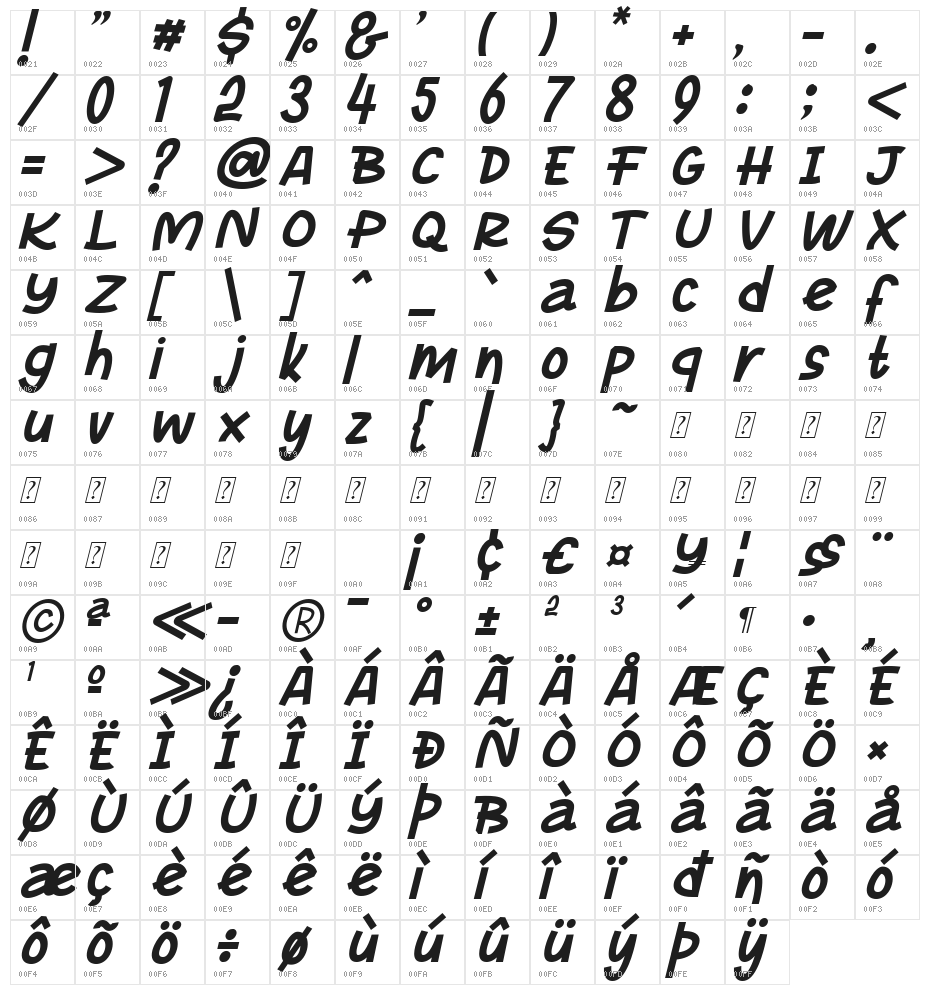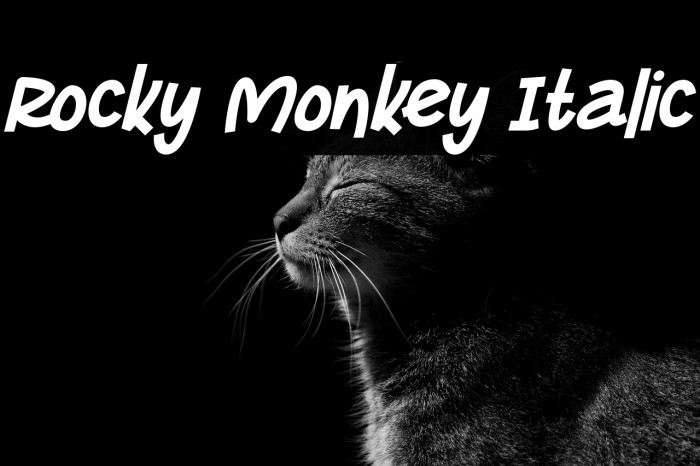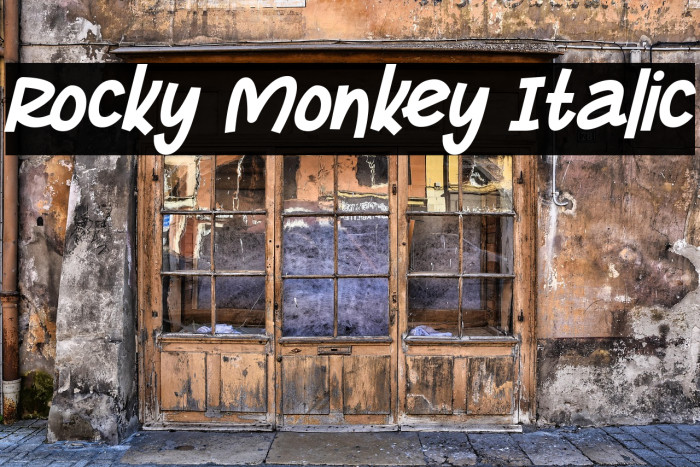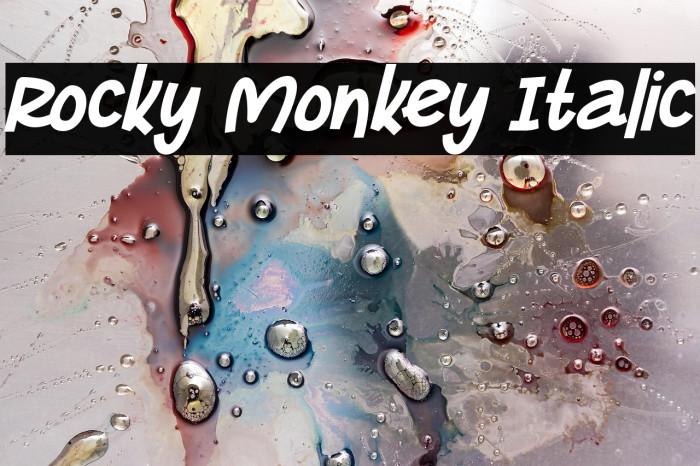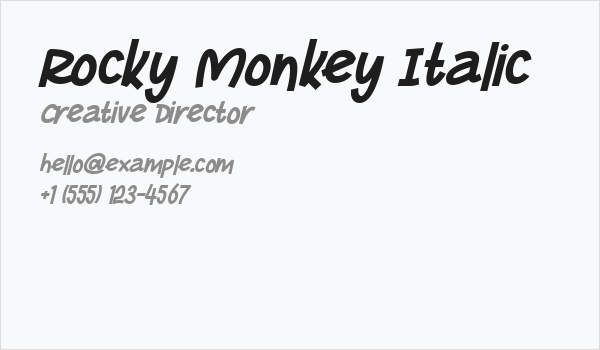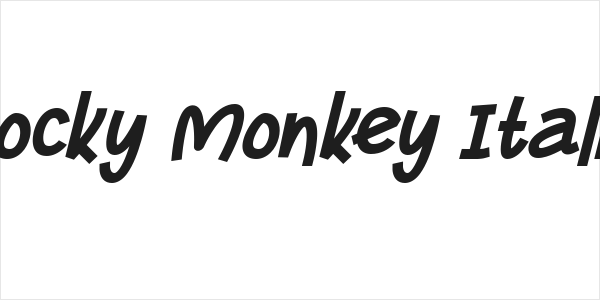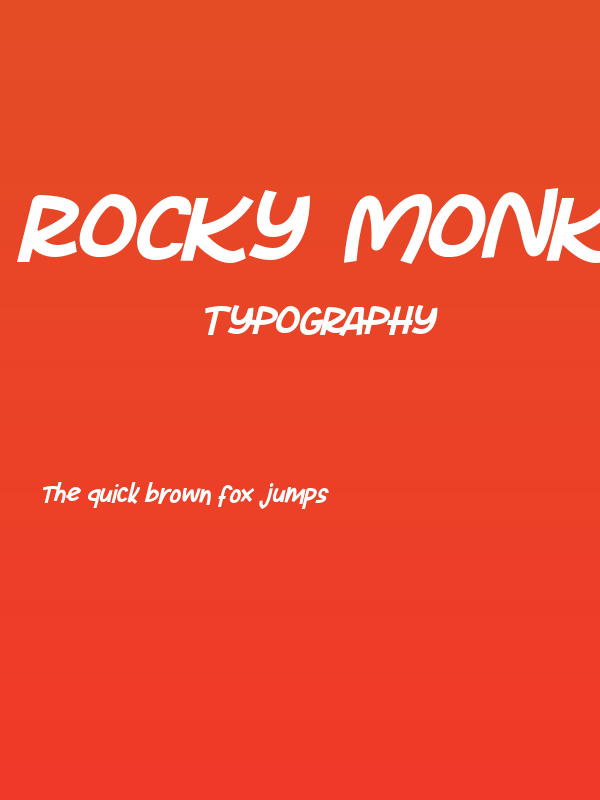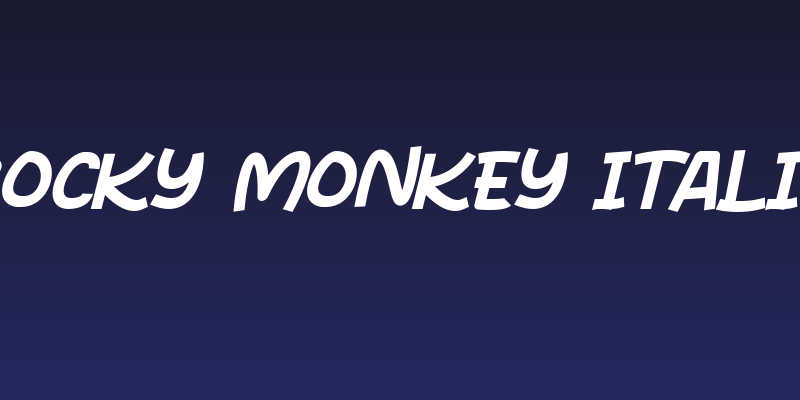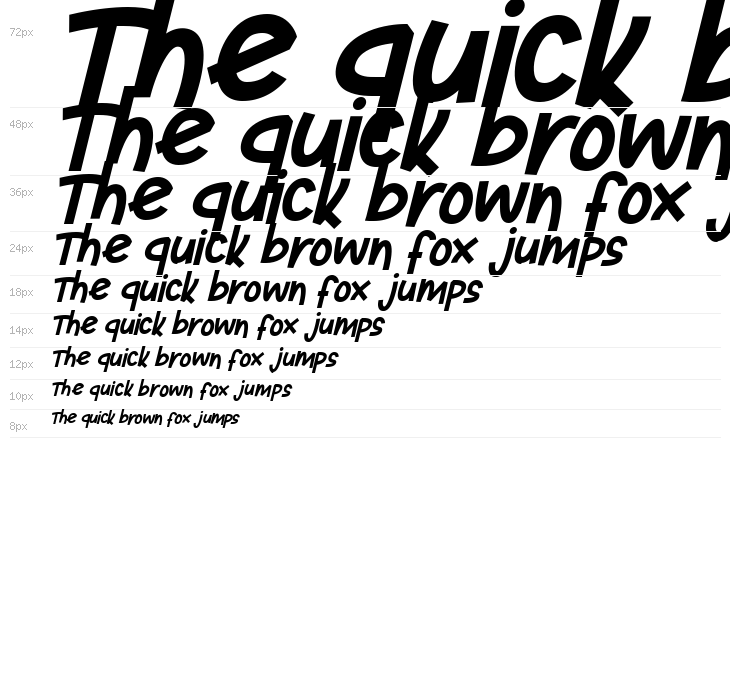
Rocky Monkey Italic Font
Rocky Monkey Italic Description
This font features a bold and dynamic script style with a playful and energetic character. The letters are slightly slanted, giving it an italic appearance, and the strokes are thick and consistent, providing a strong visual impact. The uppercase letters are bold and prominent, while the lowercase letters maintain a cohesive flow with rounded edges. Numbers and special characters are designed to match the overall style, ensuring uniformity across all elements. The font's lively and informal nature makes it suitable for projects that require a touch of fun and creativity.
| Proposed Projects | Ideal for branding, posters, invitations, and any design that needs a lively and informal touch. |